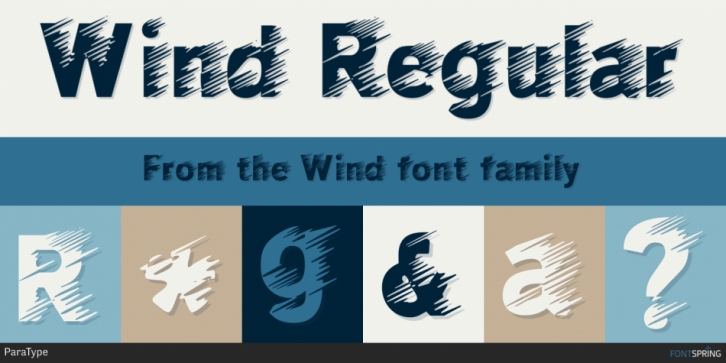
Designed by Alexander Tarbeev, Wind is a display font published by ParaType.
Wind was developed at ParaType (ParaGraph) in 1995 by Alexander Tarbeev. It is based on TextBook, 1987, by Emma Zakharova. It is best suited for use in advertising and display typography.